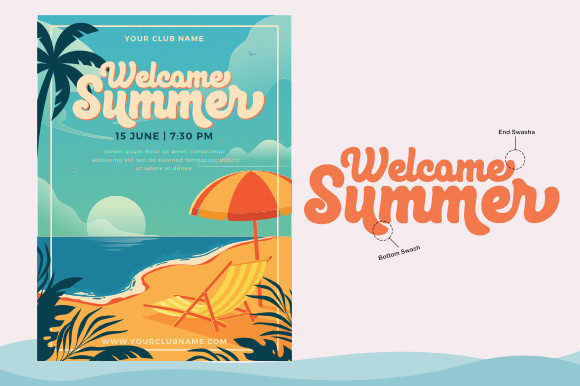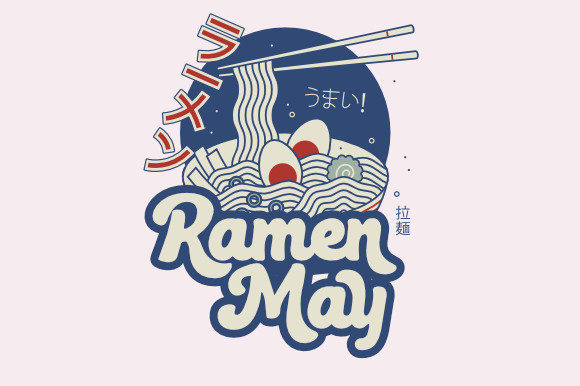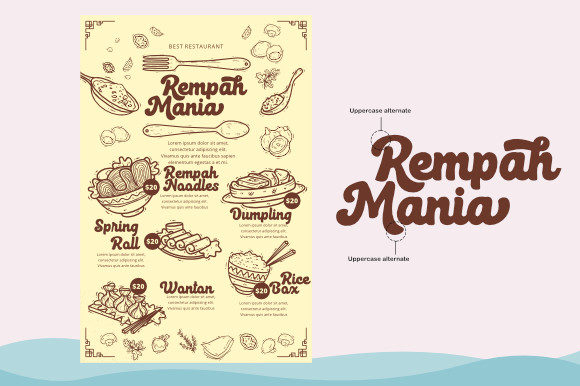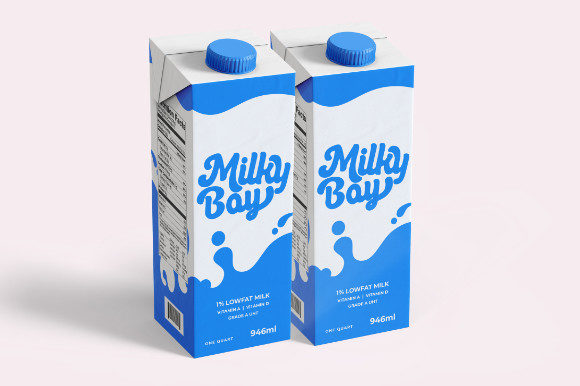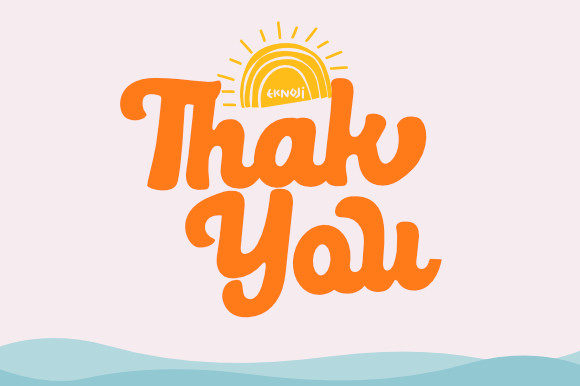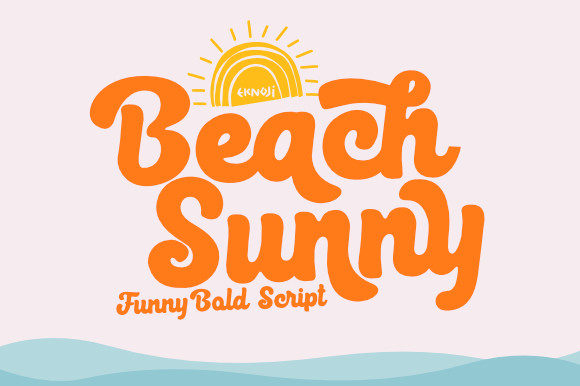
Introducing Beach Sunny Font: A Cool, Vintage, and Retro Styled Handwritten Font
Are you looking for a font that can add a touch of nostalgia and personality to your designs? Look no further than Beach Sunny Font, a cool, vintage, and retro styled handwritten font that’s perfect for designers and crafters alike. With its strong, confident, and dynamic vibe, Beach Sunny Font is sure to make your designs stand out from the crowd.
What Makes Beach Sunny Font So Special?
Beach Sunny Font is a beautifully crafted handwritten font that’s inspired by the carefree spirit of the beach. Its unique, flowing script is reminiscent of classic surf culture and summertime fun, making it perfect for designs that need a laid-back, retro vibe. Whether you’re creating posters, flyers, or social media graphics, Beach Sunny Font is sure to add a touch of personality and whimsy to your work.
Key Features of Beach Sunny Font
- PUA Encoded: Beach Sunny Font is PUA encoded, which means you can access all of the glyphs and swashes with ease. This makes it simple to customize your designs and add your own personal touch.
- Vintage and Retro Style: Beach Sunny Font has a distinctly vintage and retro feel that’s perfect for designs that need a nostalgic touch.
- Handwritten Script: The font’s handwritten script is unique and flowing, with a natural, effortless feel that’s perfect for a wide range of design applications.
- Strong and Confident: Despite its playful, carefree vibe, Beach Sunny Font reads as strong and confident, making it perfect for designs that need to make a statement.
Beach Sunny Font is perfect for designers and crafters who want to add a touch of personality and whimsy to their work. Whether you’re creating:
- Posters and flyers for a summer sale or event
- Social media graphics for a beach-themed brand
- Invitations and party decor for a retro-themed party
- Branding and packaging for a surf or beach-inspired business
Beach Sunny Font is the perfect choice. Its unique, vintage-inspired script is sure to add a touch of nostalgia and fun to your designs, and its PUA encoding makes it easy to customize and personalize.
Tips for Using Beach Sunny Font
Here are a few tips for getting the most out of Beach Sunny Font:
- Use it with a bold color: Beach Sunny Font looks amazing with bold, bright colors that match its fun and playful vibe.
- Experiment with swashes: The font’s PUA encoding makes it easy to access a range of swashes and glyphs. Experiment with different combinations to add a unique touch to your designs.
- Pair it with a simple background: Beach Sunny Font can hold its own against a busy background, but it also looks amazing against a simple, solid color.